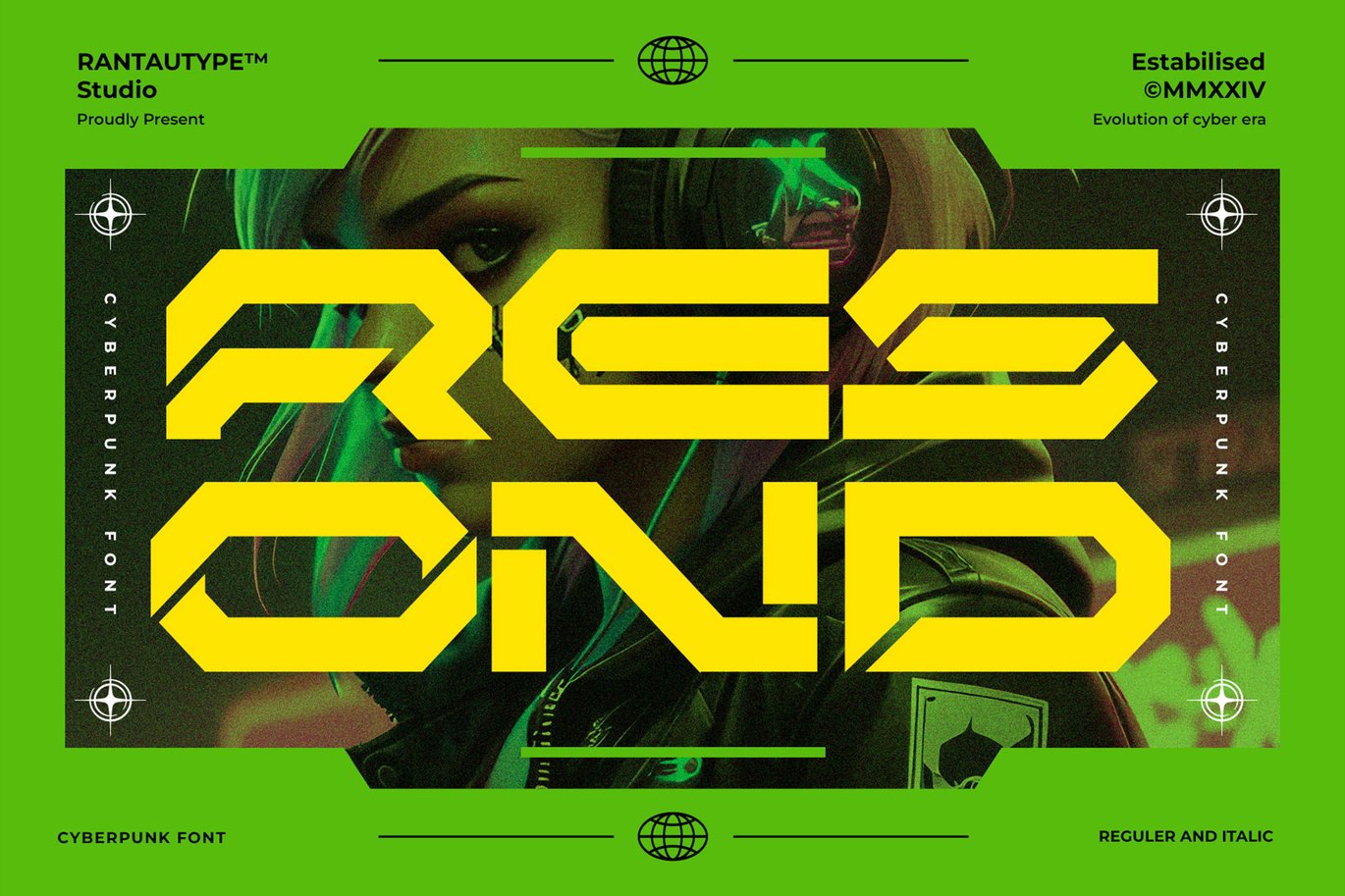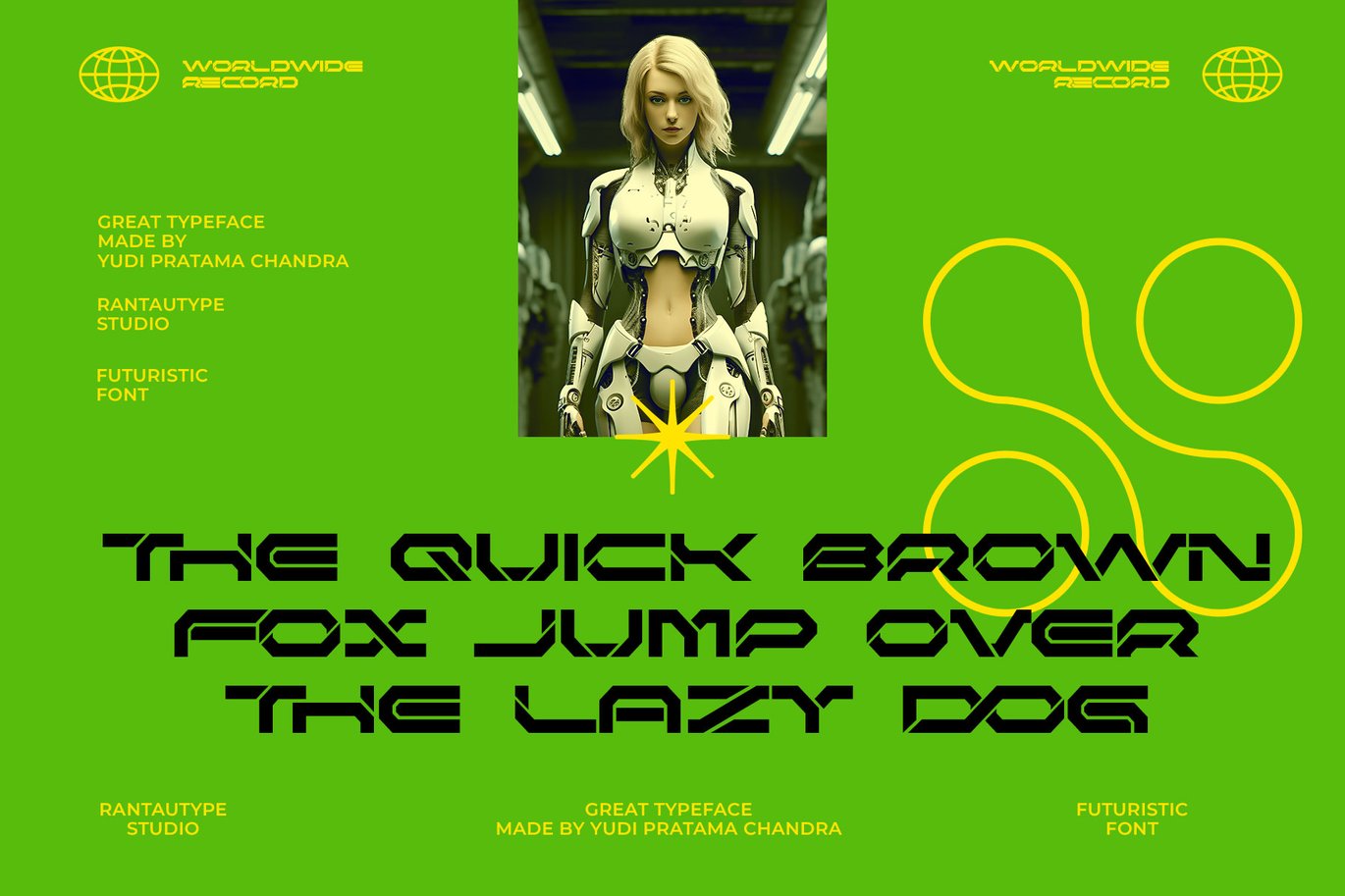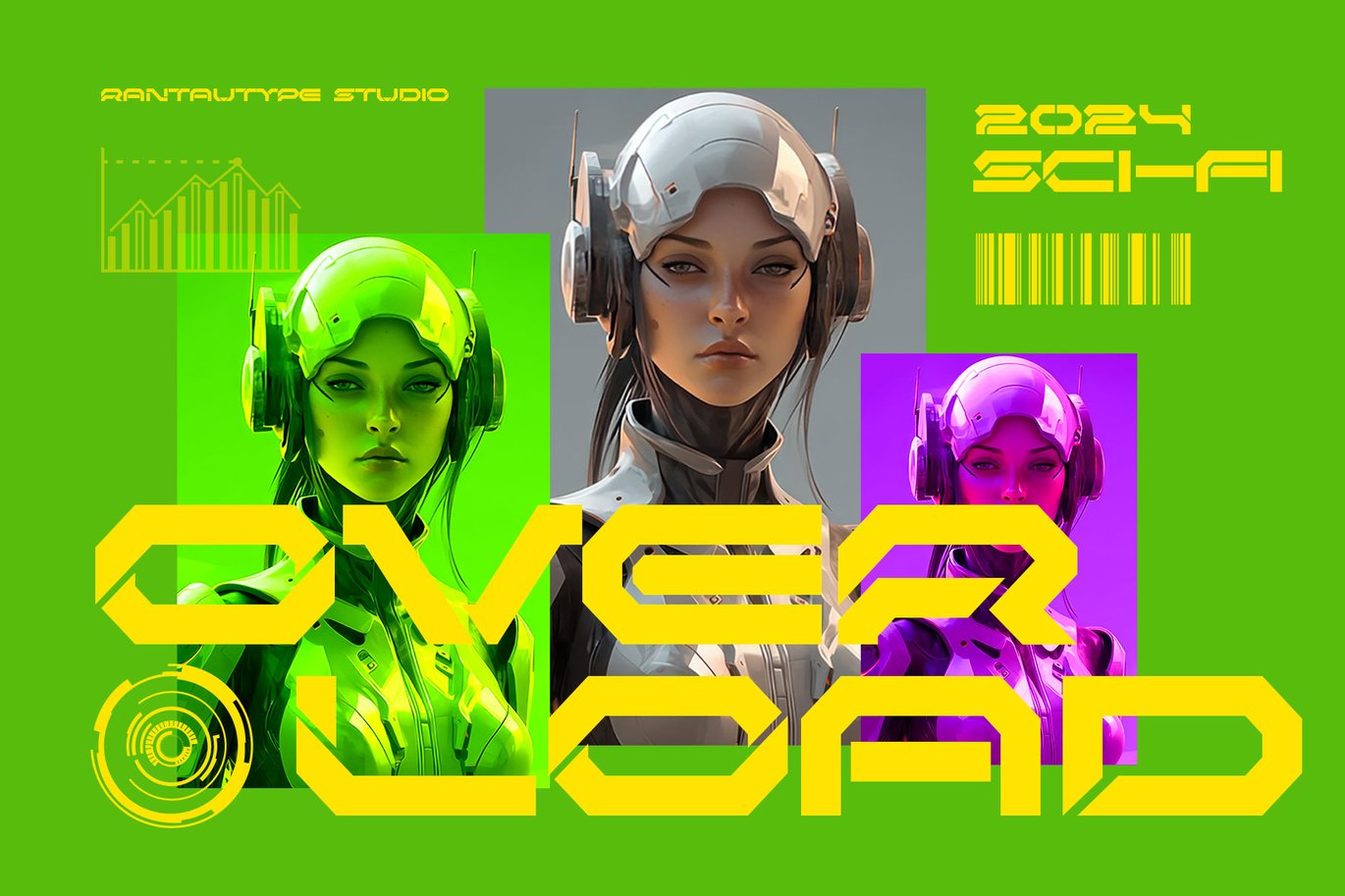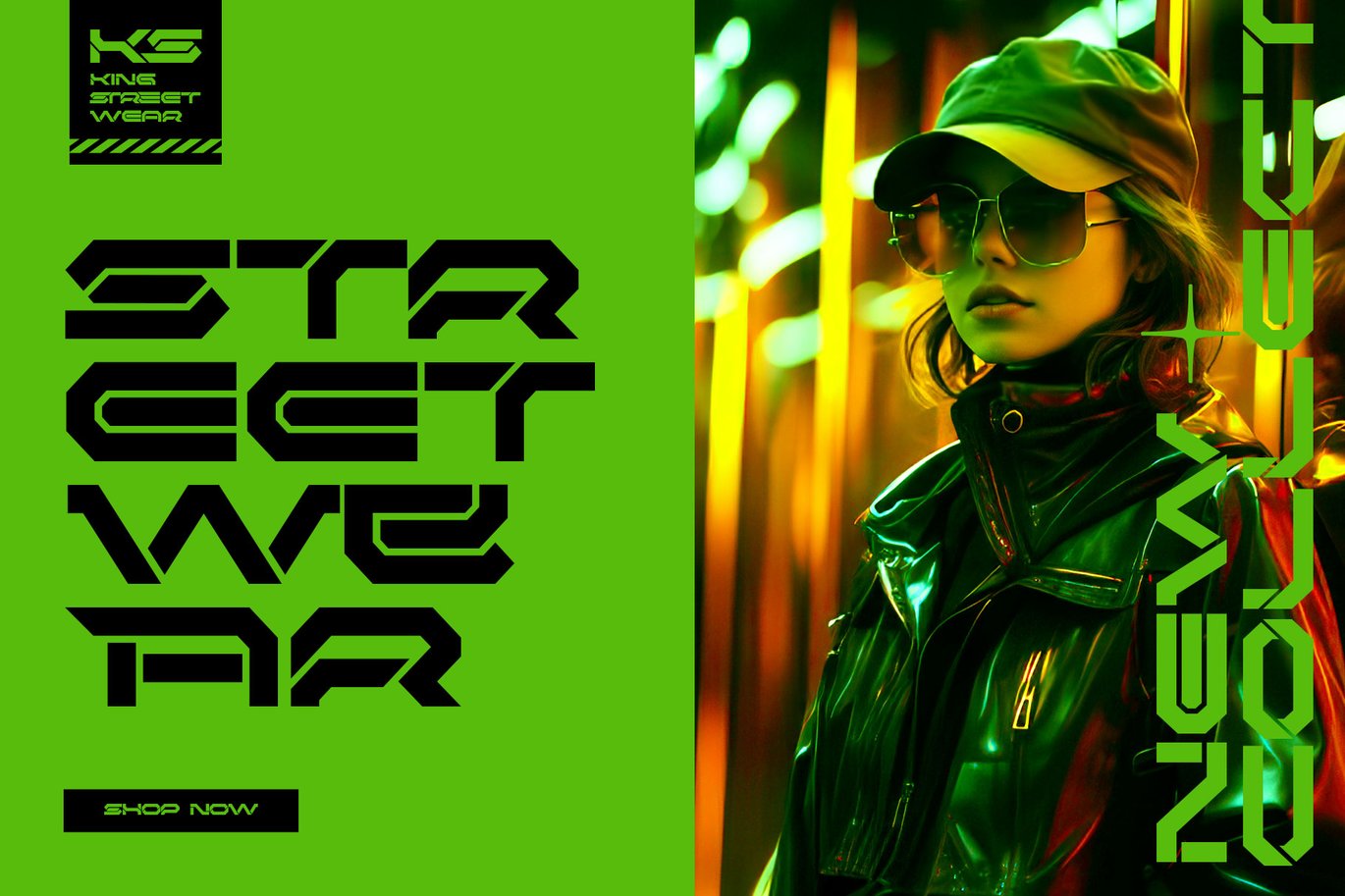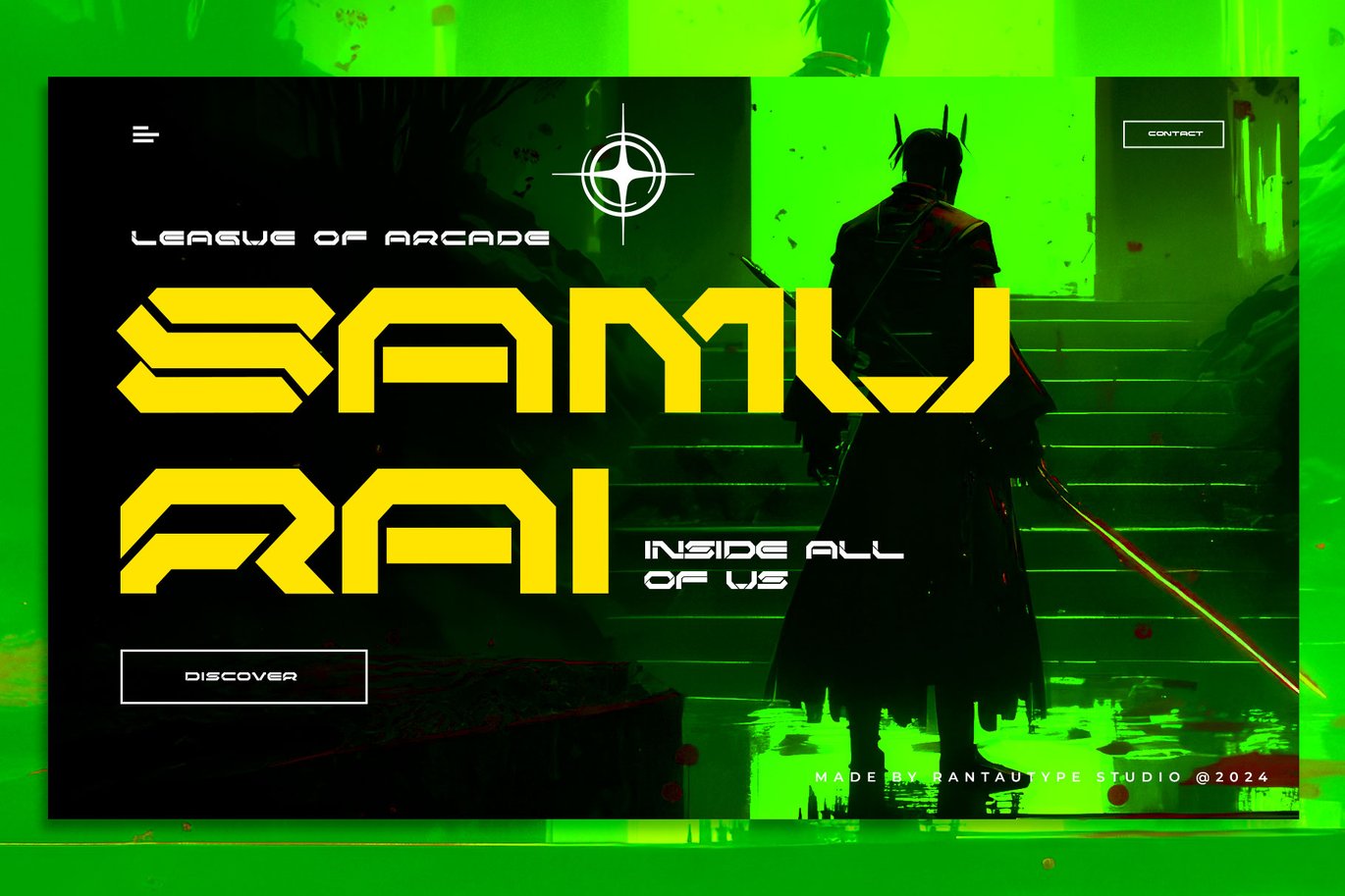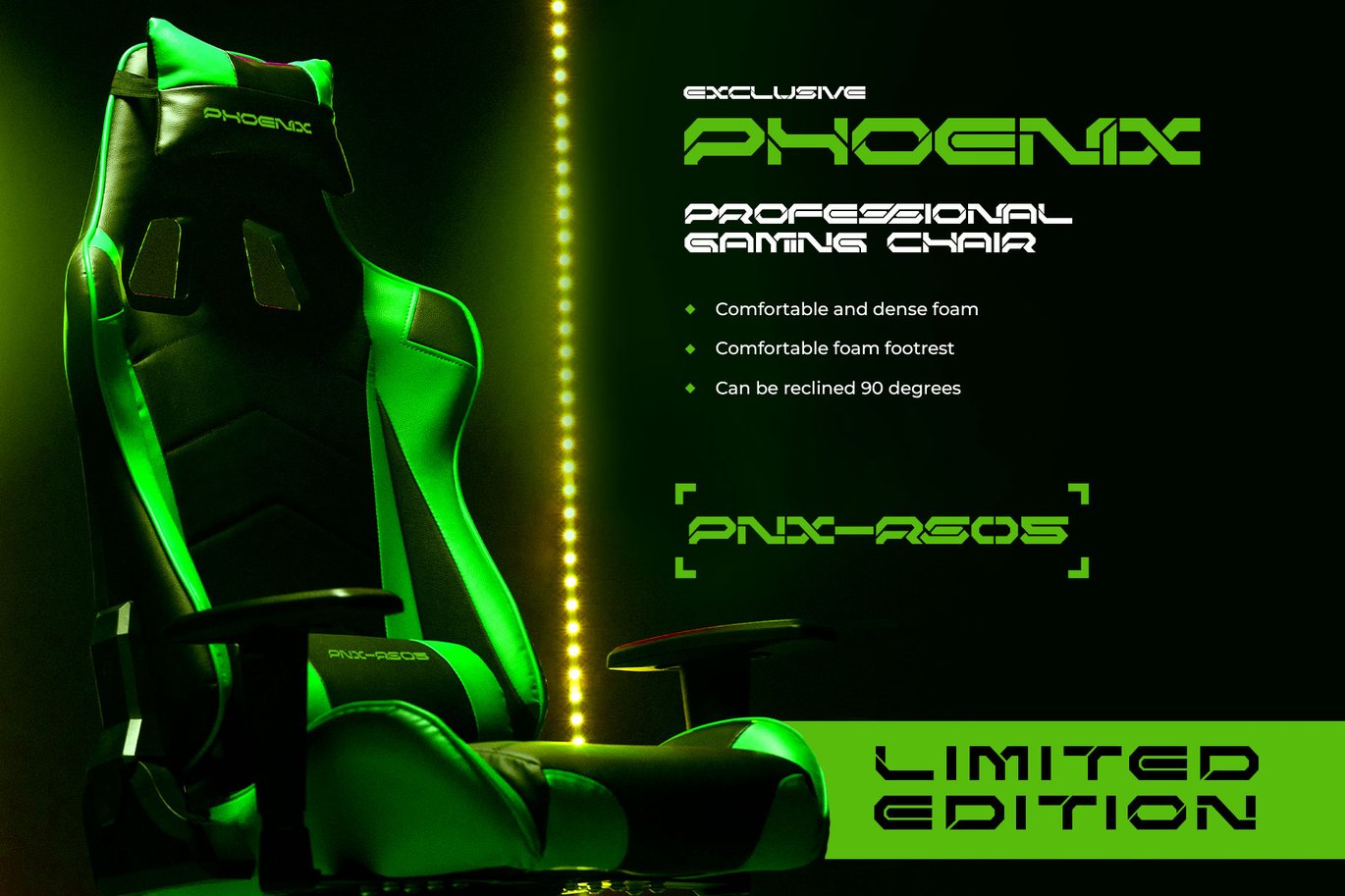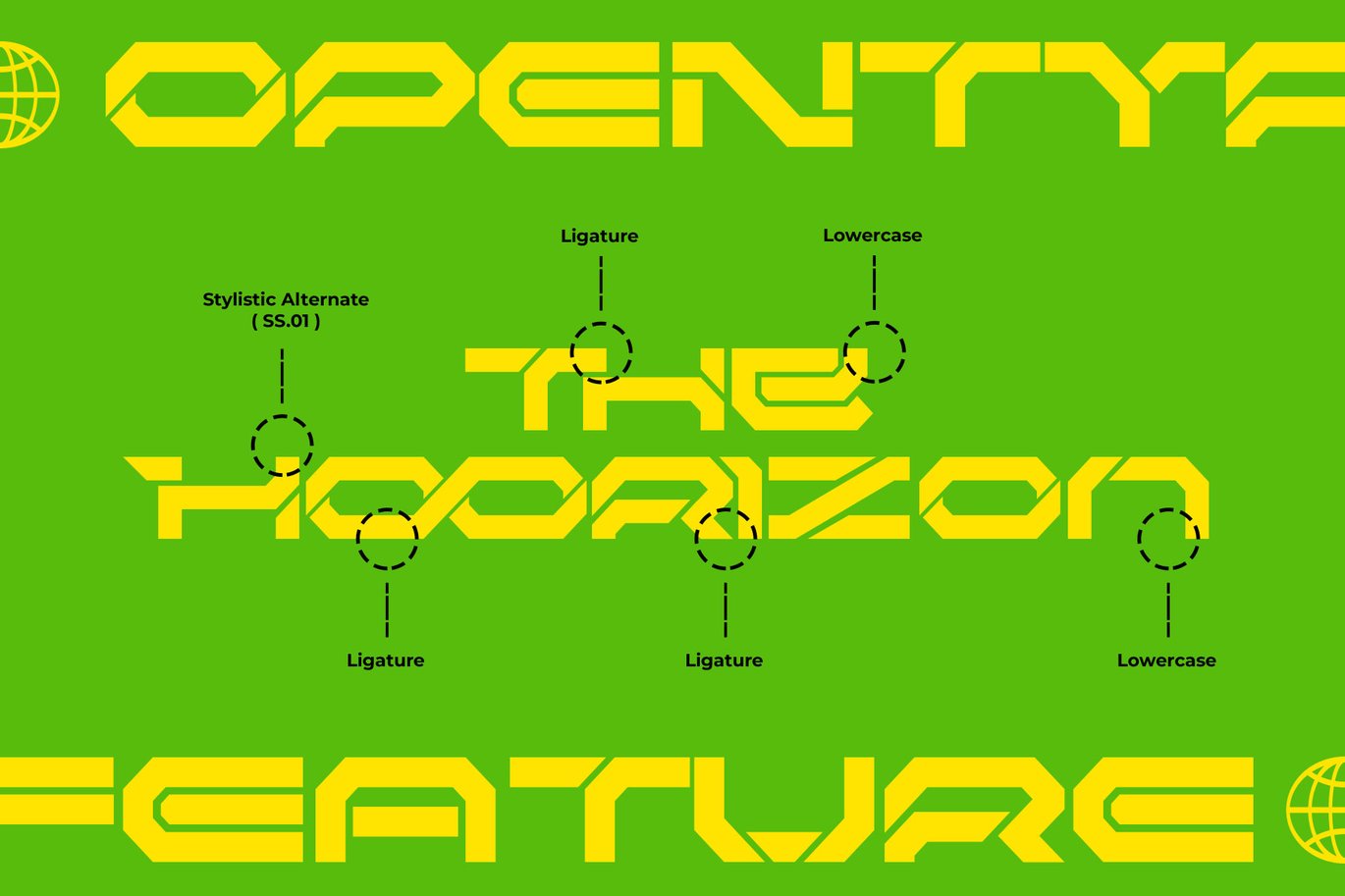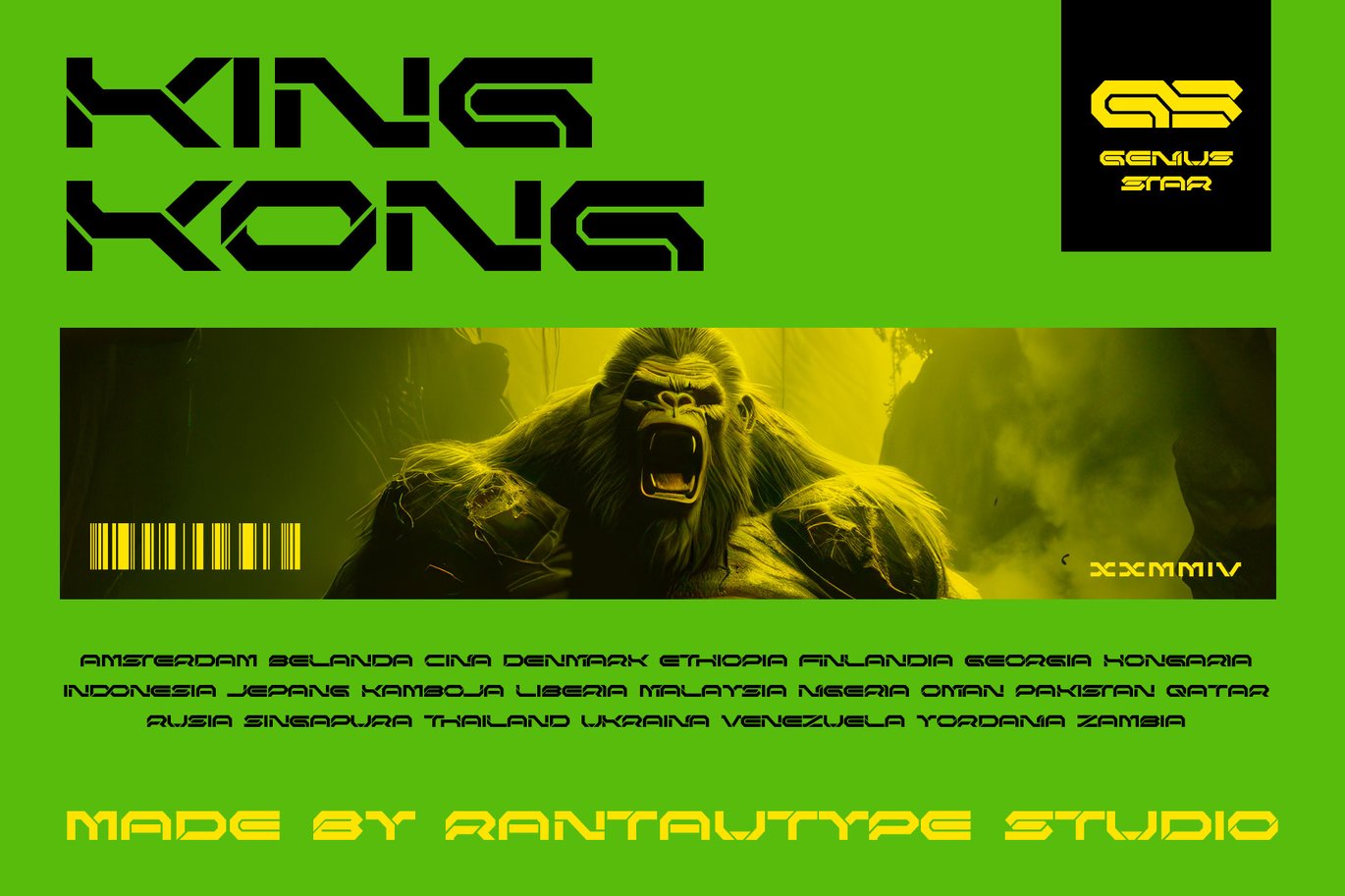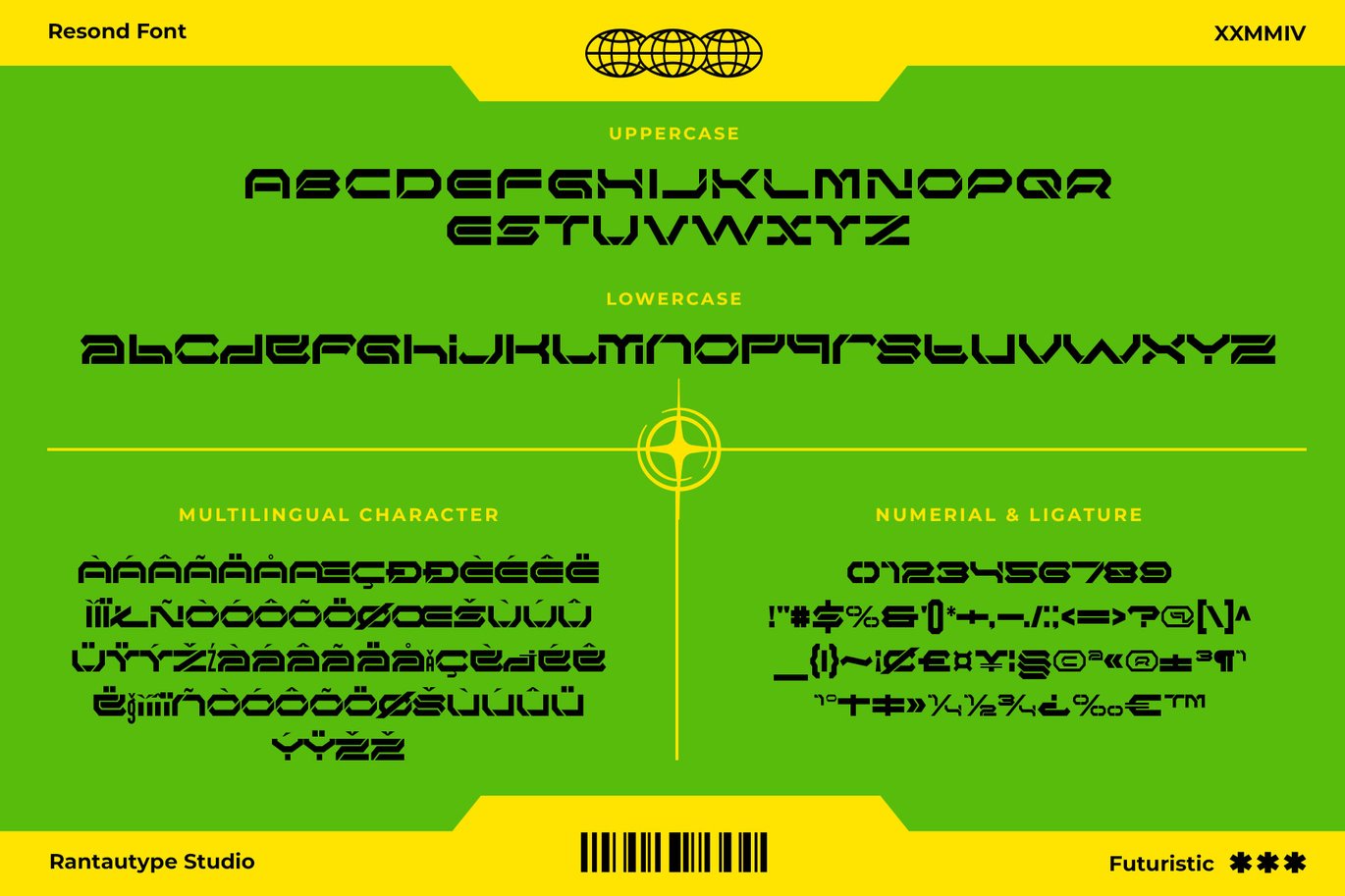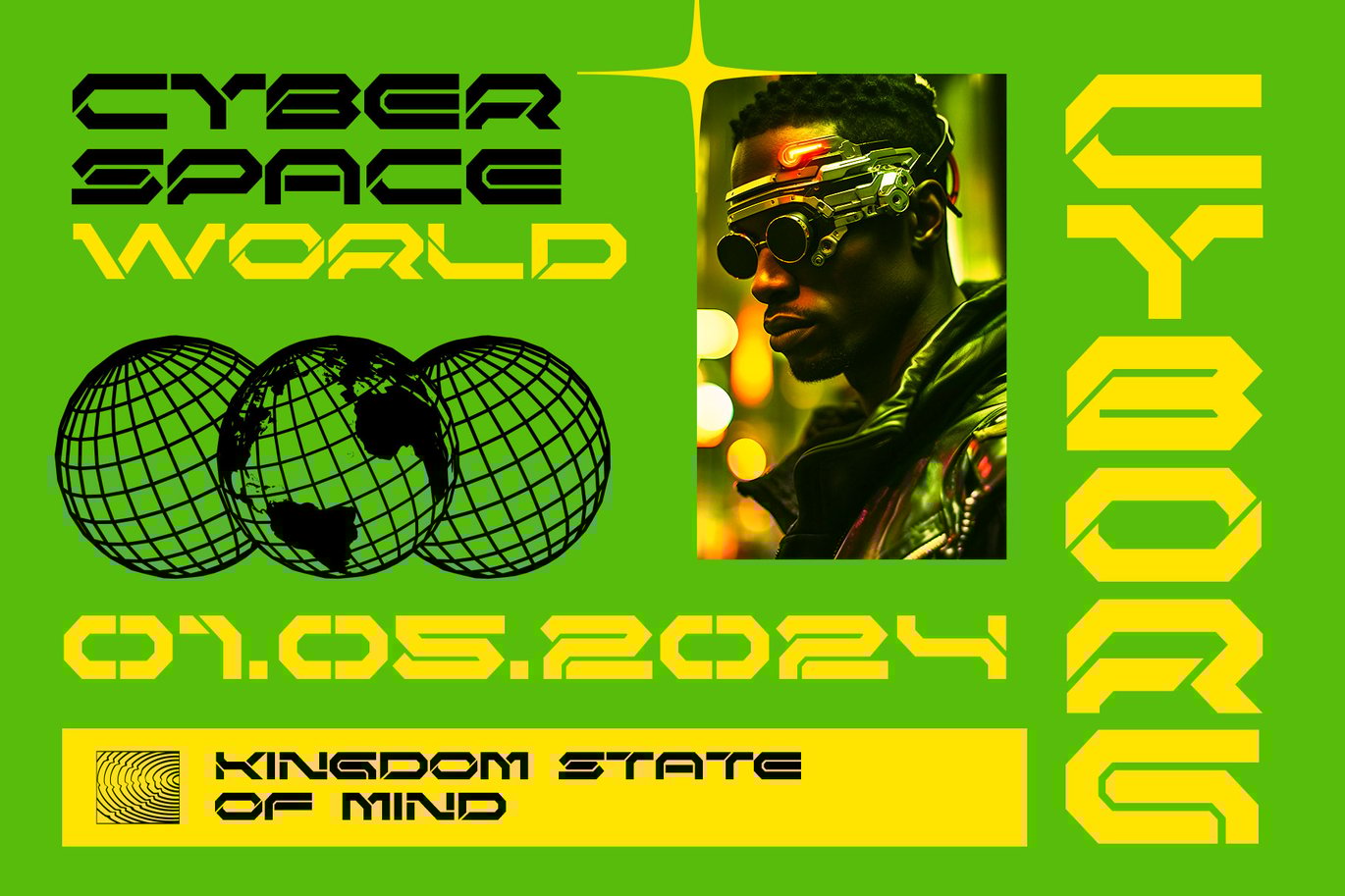
Resond Cyberpunk Futuristic Font
Resond it futuristic mecha display font with bold letters looks Edge & Power full. Resond inspire by aesthetics of mecha machinery and futuristic visual design. With its cyberpunk-inspired design, “Resond” transports your audience into a world where technology and imagination intertwine.
Resond is a perfectly choice for any creative endeavor such as logos, advertisements, thumbnail, billboard, display and magazine, headline, website, game project, gaming brand, street wear design, corporate brand, product design, business project and many other project with futuristic touch.
Fonts include Multilingual Character for: Afrikaans, Albanian, Asu, Basque, Bemba, Bena, Breton, Chiga, Cornish, Dutch, English, Estonian, Filipino, Finnish, Friulian, Galician, Gusii, Indonesian, Irish, Italian, Kabuverdianu, Kalenjin, Kinyarwanda, Luo, Luxembourgish, Luyia, Machame, Makhuwa-Meetto, Makonde, Malagasy, Manx, Morisyen, North, Ndebele, Nyankole, Oromo, Portuguese, Quechua, Romansh, Rombo, Rundi, Rwa, Samburu, Sango, Sangu, Scottish, Gaelic, Sena, Shambala, Shona, Soga, Somali, Spanish, Swahili, Swedish, Swiss, German.